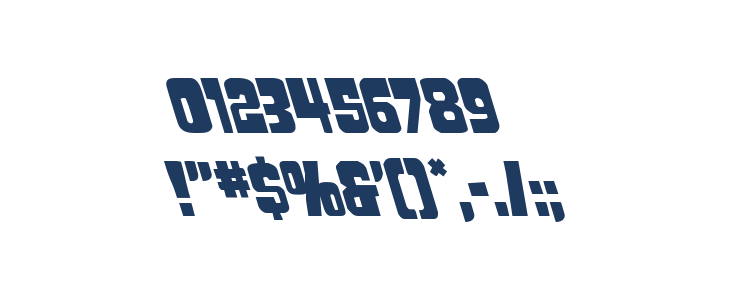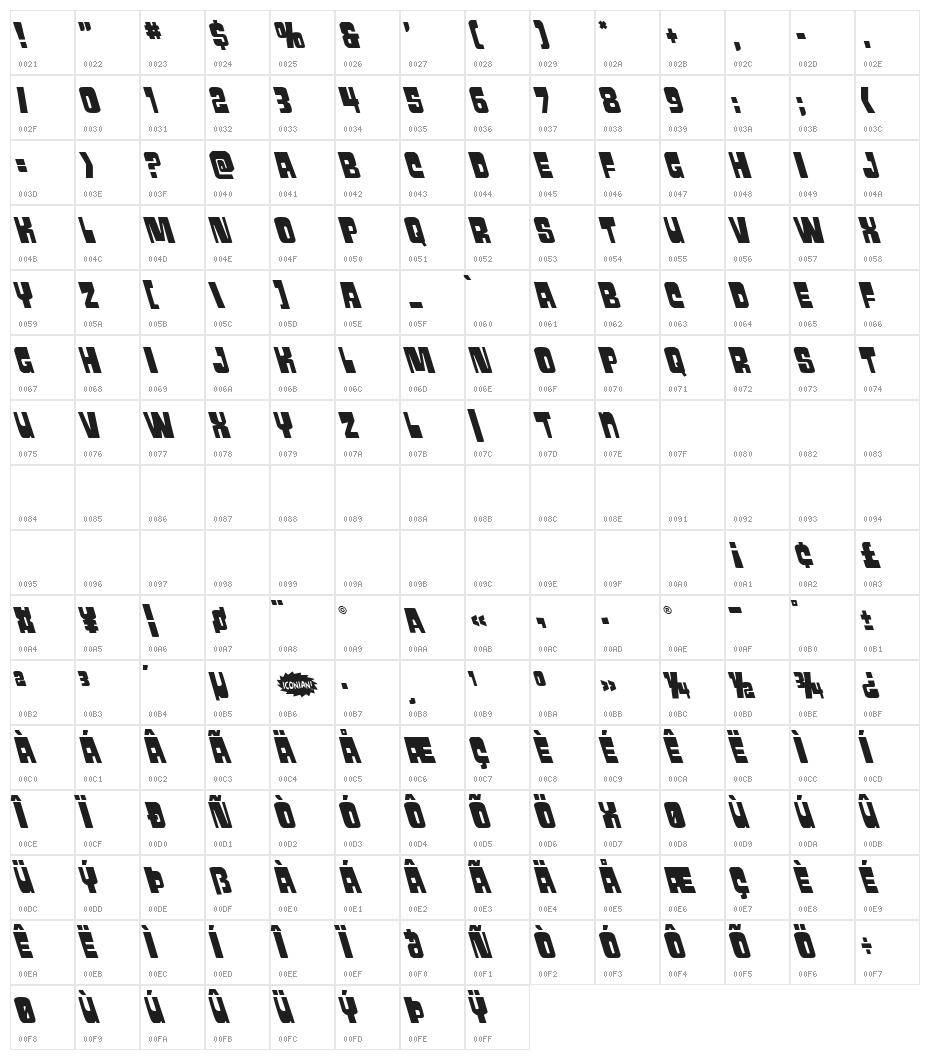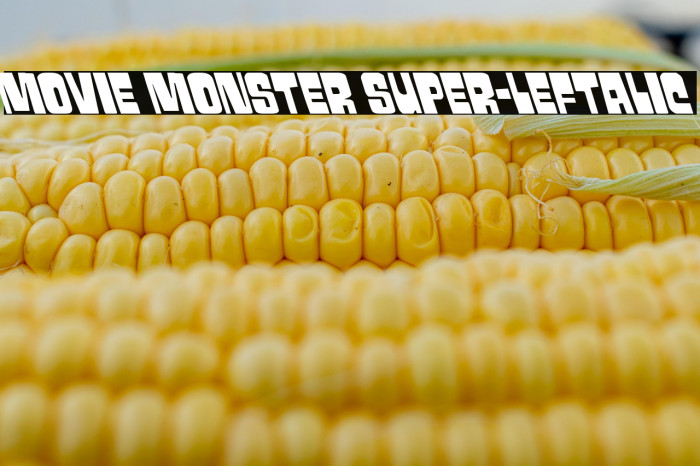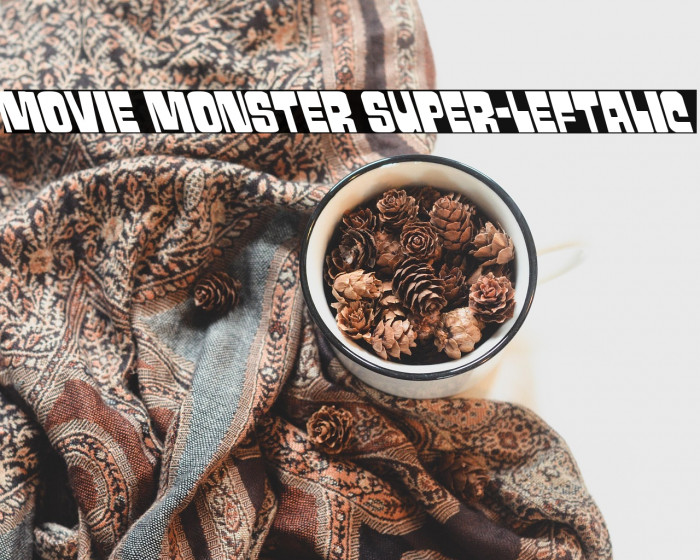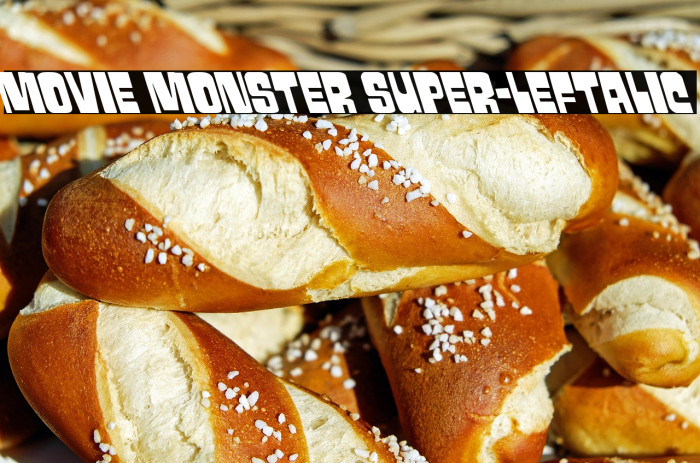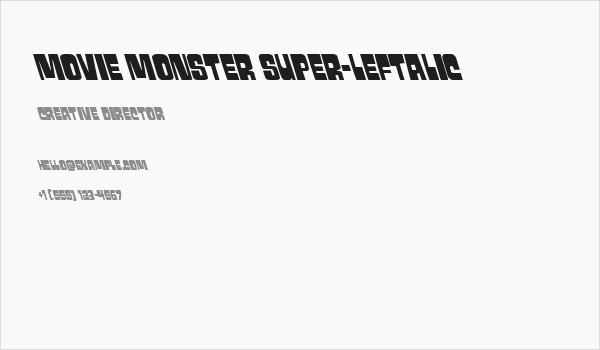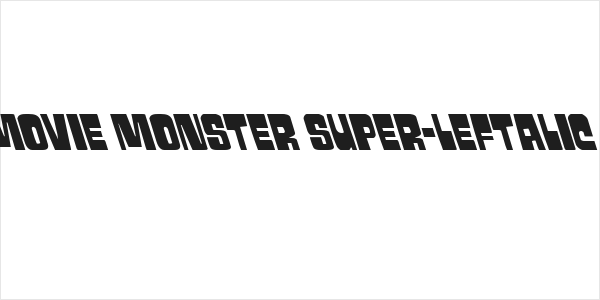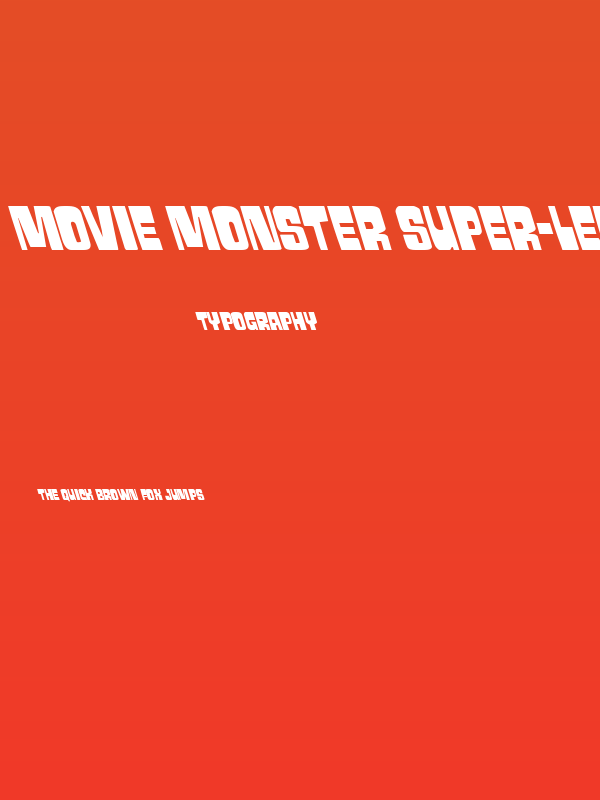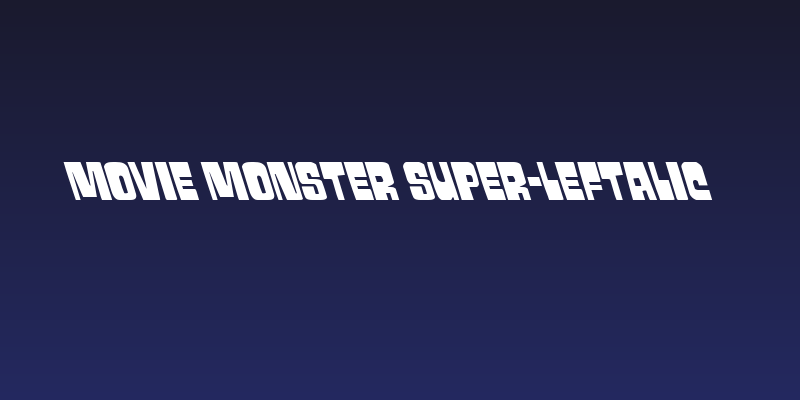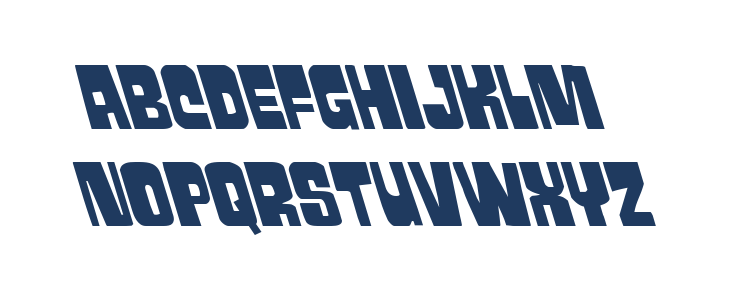
Movie Monster Super-Leftalic Font
Movie Monster Super-Leftalic Description
This font features a bold, dynamic style with a strong leftward slant, giving it a sense of movement and energy. The characters are wide and blocky, with a distinct geometric influence that makes them stand out. The uppercase and lowercase letters maintain a consistent weight, contributing to a cohesive look. The numbers and special characters follow the same bold and angular design, ensuring uniformity across all glyphs. This font's unique style is ideal for projects that require a striking and impactful visual presence.